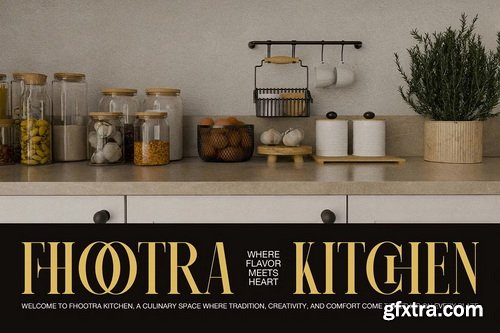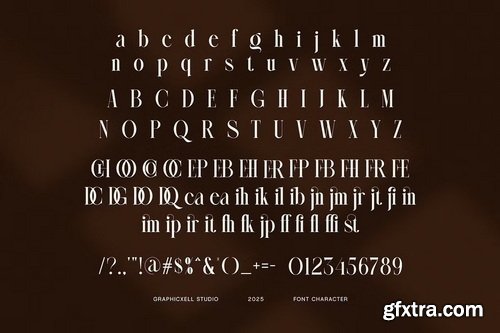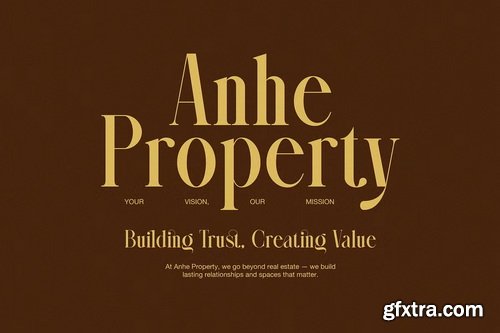
- Sencha Elegant Serif Font is a modern serif typeface designed to elevate your brand with timeless style and clear elegance. Crafted with smooth curves and balanced letterforms, Sencha brings both character and clarity to any creative work.
- Because of its refined shape and clean layout, this font works beautifully across all design needs. Whether you're creating a standout logo, a sophisticated magazine spread, or a stylish product label, Sencha gives your work a fresh and polished feel.
- One of Sencha’s best features is its functional ligatures. These special letter combinations help your text flow naturally while adding a touch of charm and uniqueness. That means you don’t have to add extra design elements—Sencha already does the work for you.